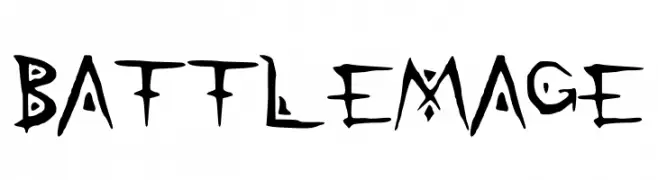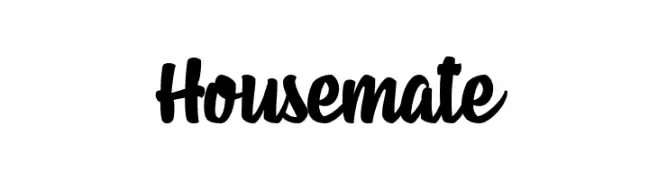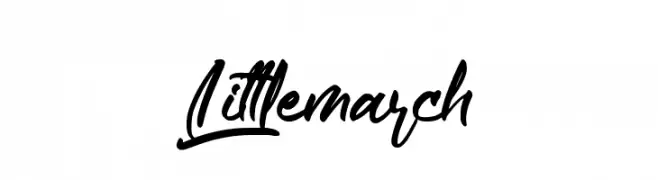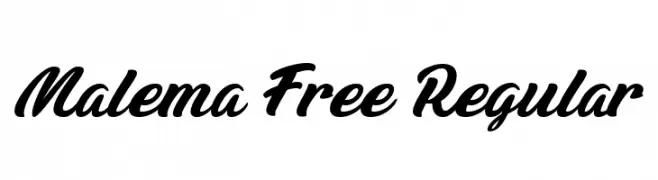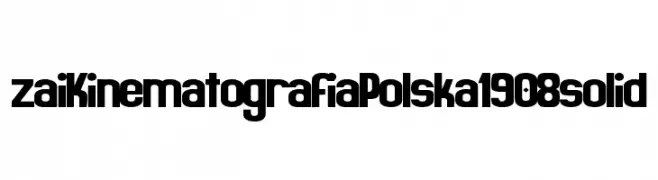
A tall, narrow font with sharp, angular edges for a futuristic look.
A bold, flowing script font with smooth, cursive letterforms.
An elegant cursive font with graceful curves and artistic flourishes.
A bold, dynamic script font with calligraphic influences and sweeping strokes.
A graceful and flowing script font with elegant, cursive letterforms.
A bold, edgy font with sharp, angular lines and a hand-drawn appearance.
A bold, expressive handwritten font with playful curves and a friendly vibe.
A playful, handwritten font with a bold, rounded style.
A bold, geometric font with a strong, blocky appearance.
A bold, expressive handwritten font with fluid, cursive strokes.